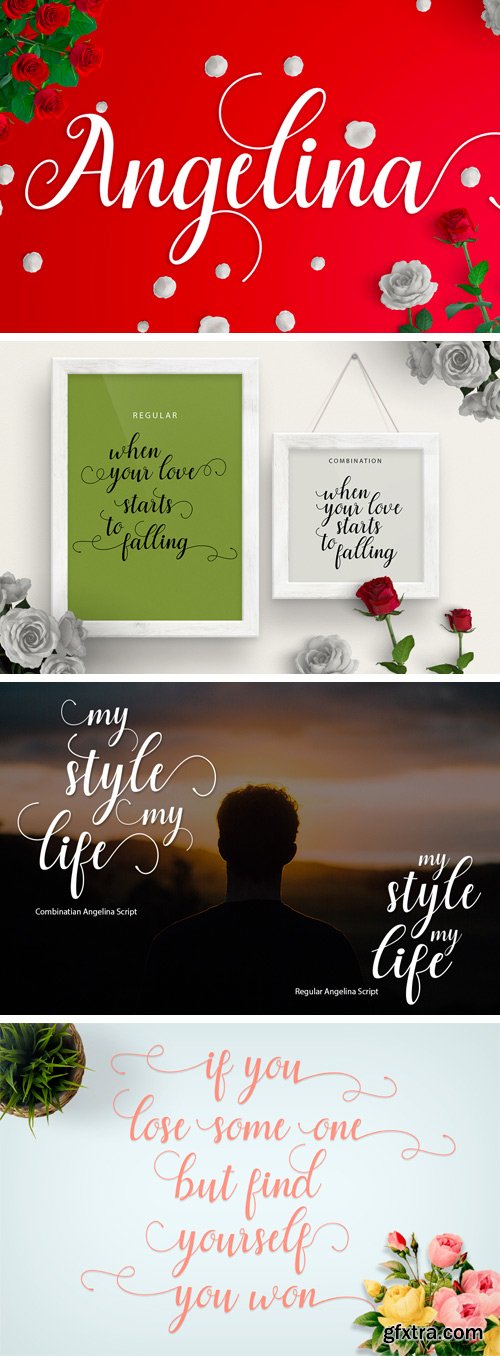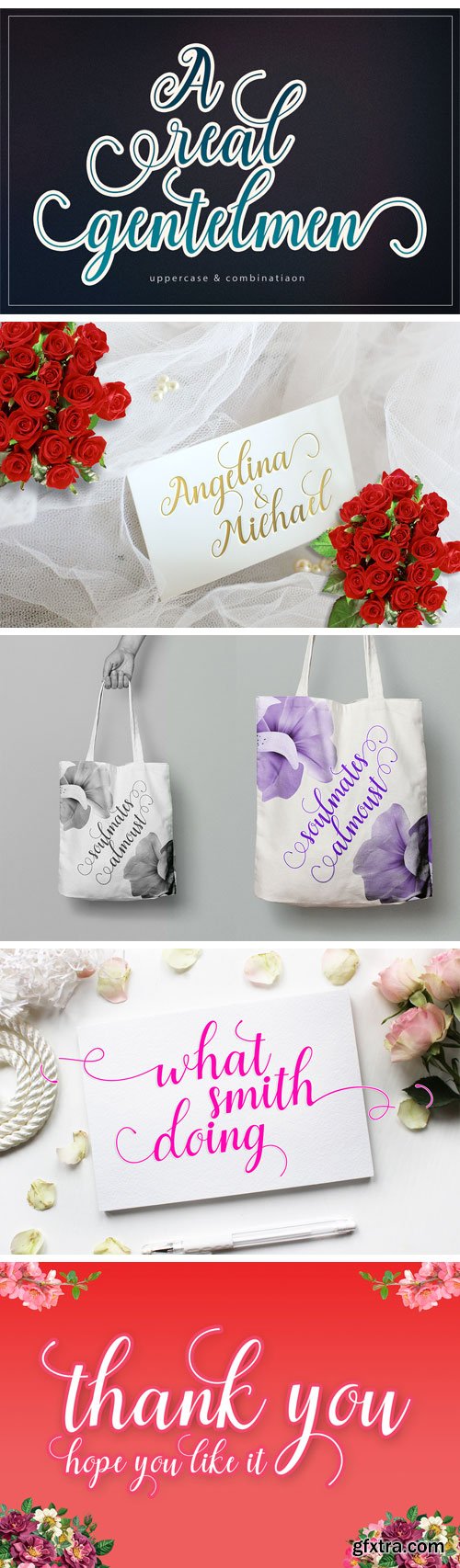
Angelina Script Font
Angelina Script is a new fresh & modern script with a handmade calligraphy style, decorative characters and a dancing baseline! Beautiful on invitations such as greeting cards, branding materials, business cards, quotes, posters, and more! Angelina Script come with 234 glyphs. The alternative characters were divided into several Open Type features such as Swash, Stylistic Sets, Stylistic Alternates, Contextual Alternates.